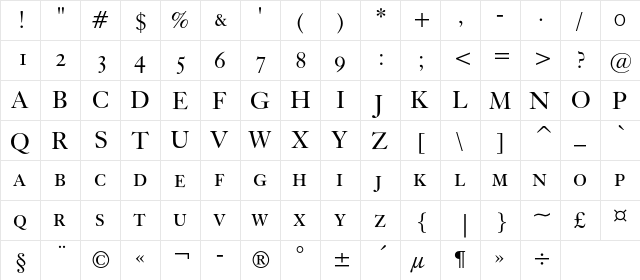
KisSCC BT Regular Font Preview
KisSCC BT Regular
Design Context for KisSCC BT Typeface
KisSCC BT offers clean, dependable letterforms without strong stylistic allegiance, making it a practical choice for designers who need flexibility.
Pro Tip: Pair KisSCC BT with a font of contrasting weight or personality to build a more expressive typographic hierarchy.